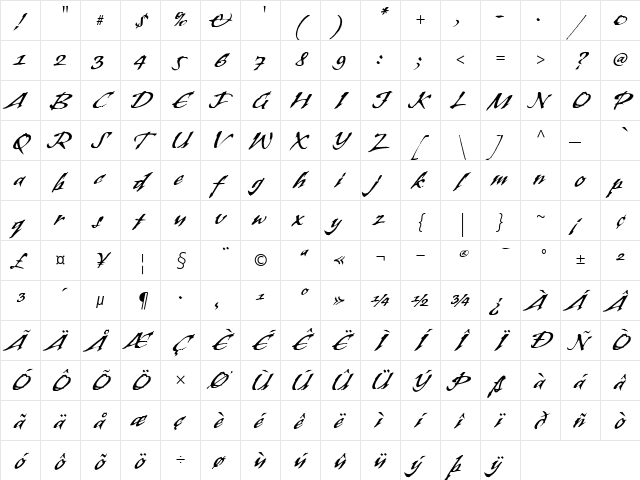
Banshee RomanItalic
Style: RomanItalic
Design Context for Banshee
Banshee is a composed and adaptable typeface that performs quietly and consistently across a wide range of design contexts. The slanted form adds forward momentum and visual energy.
Pro Tip: Use Banshee for emphasis, pull quotes, and subheadings where its slanted energy can add rhythm to the layout.